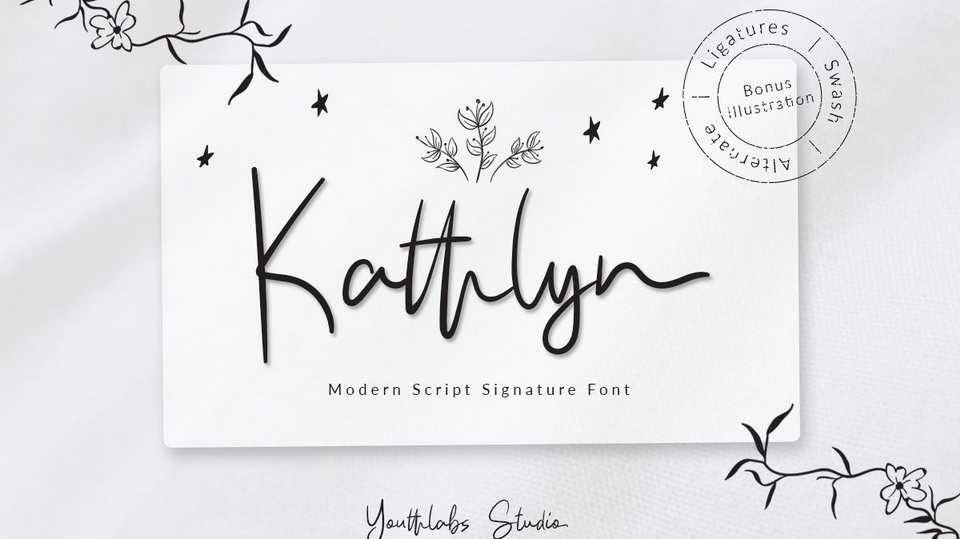
Download Kathlyn Script, a modern and elegant signature typaface with various thickness. Higly recomended use to wedding project, letter, book, card and it’s perfect use into logotype and many various of design project.